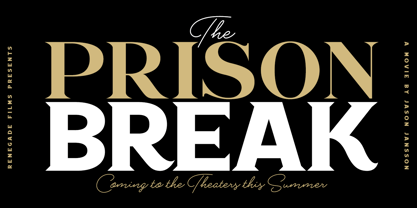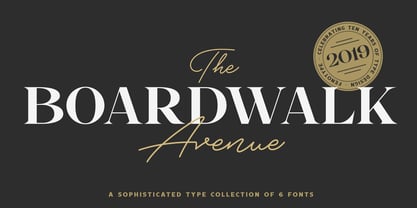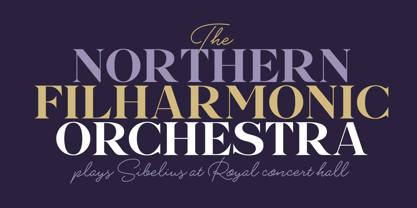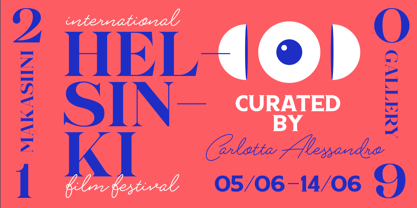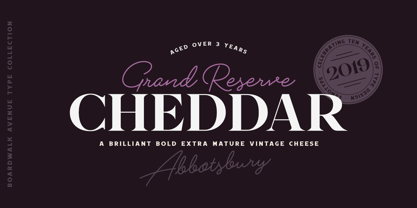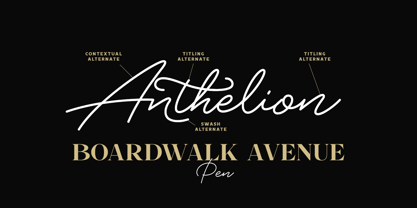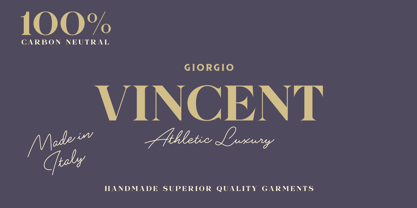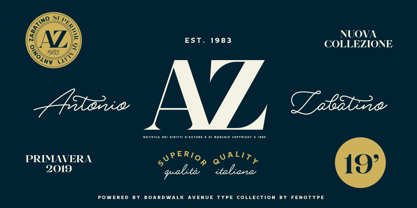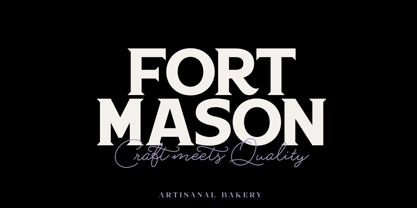
Boardwalk Avenue Font
This font is perfect for signage, posters, branding, social media graphics, greeting cards, and lifestyle blogs. Its fun, hand-crafted appearance makes it ideal for projects that want to convey friendliness and creativity.
What makes Boardwalk Avenue Font Free Download exciting is its relaxed, yet elegant style that captures attention without sacrificing readability. It adds personality and warmth to any design, making your projects feel approachable and memorable.
The font family of Boardwalk Avenue includes styles such as Regular, Bold, and Italic, providing flexibility for different design needs and visual hierarchy.
Overall, Boardwalk Avenue Font Free Download is a great choice for designers looking to inject charm and creativity into their work. From casual branding to eye-catching promotional materials, this font elevates every project with style and flair.